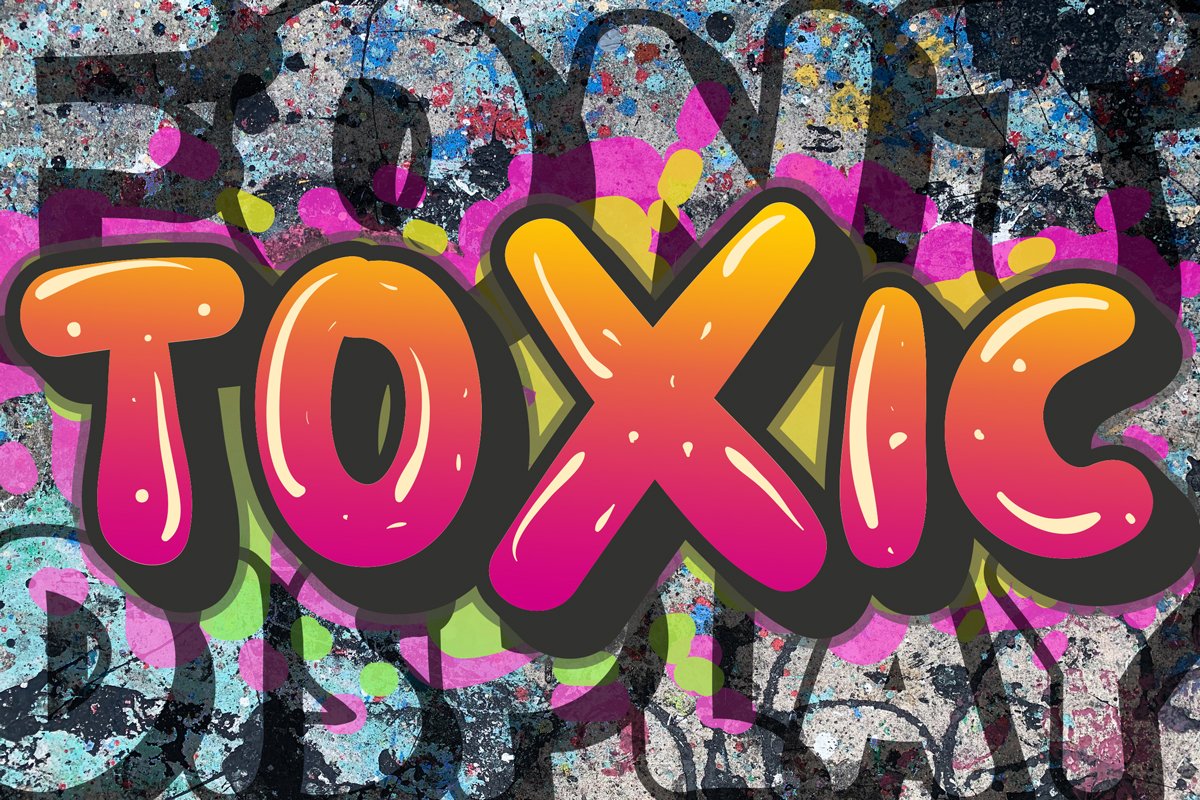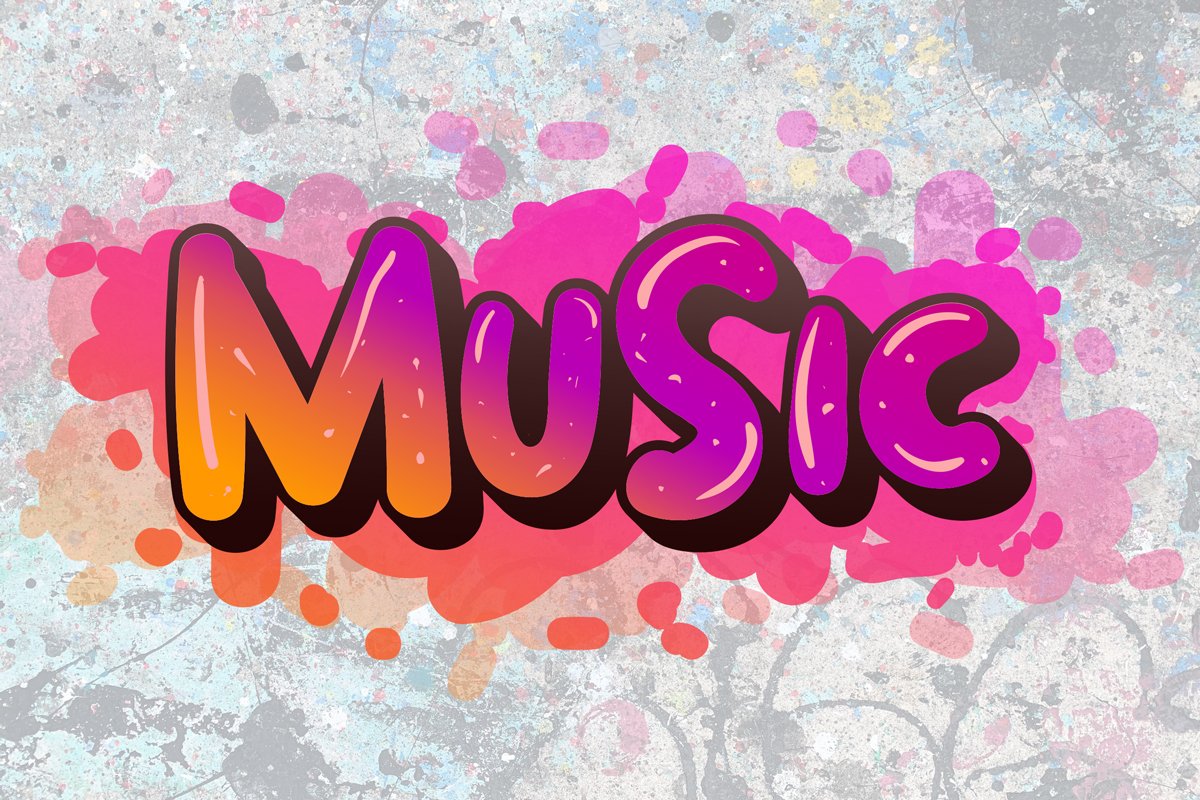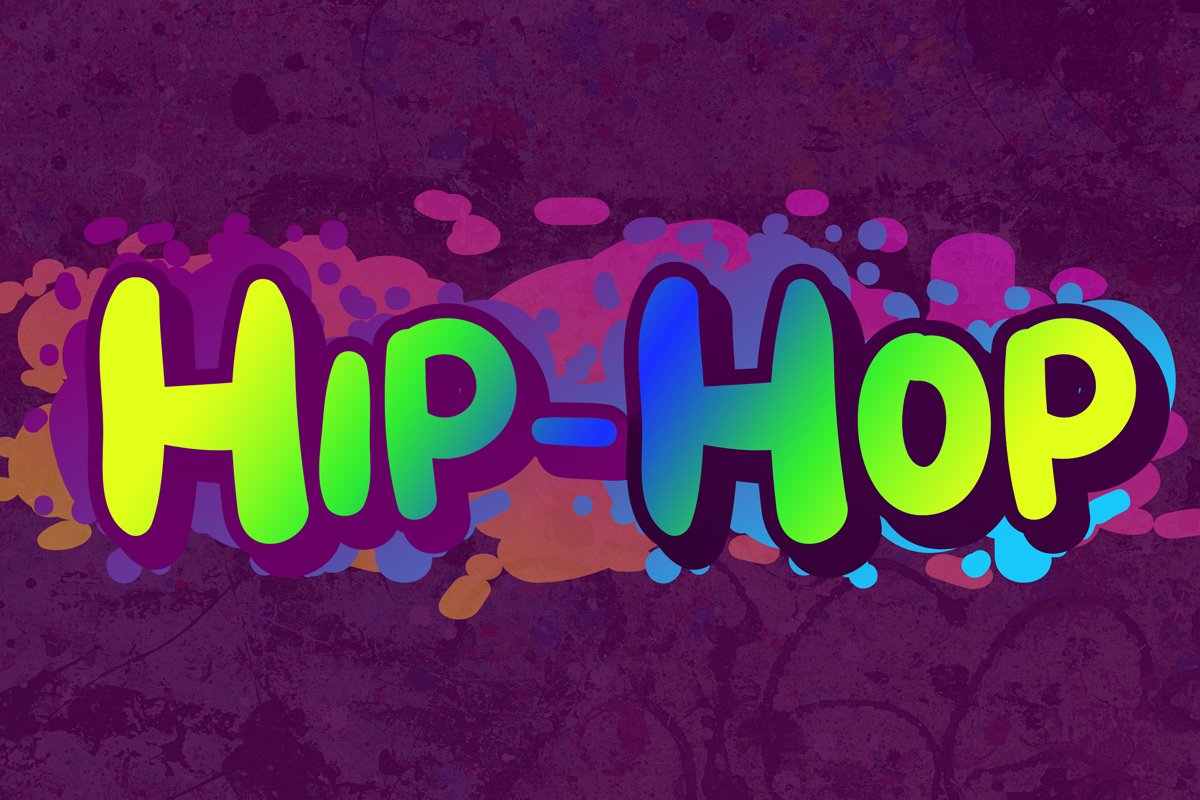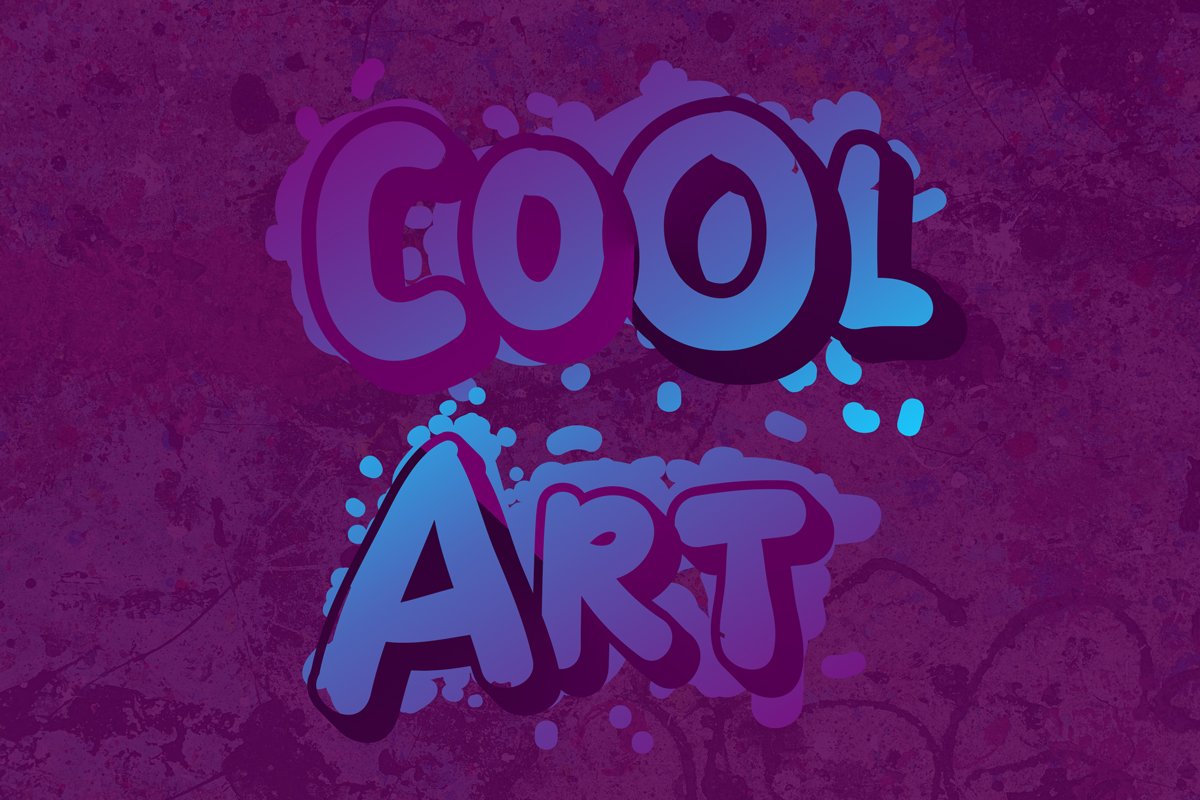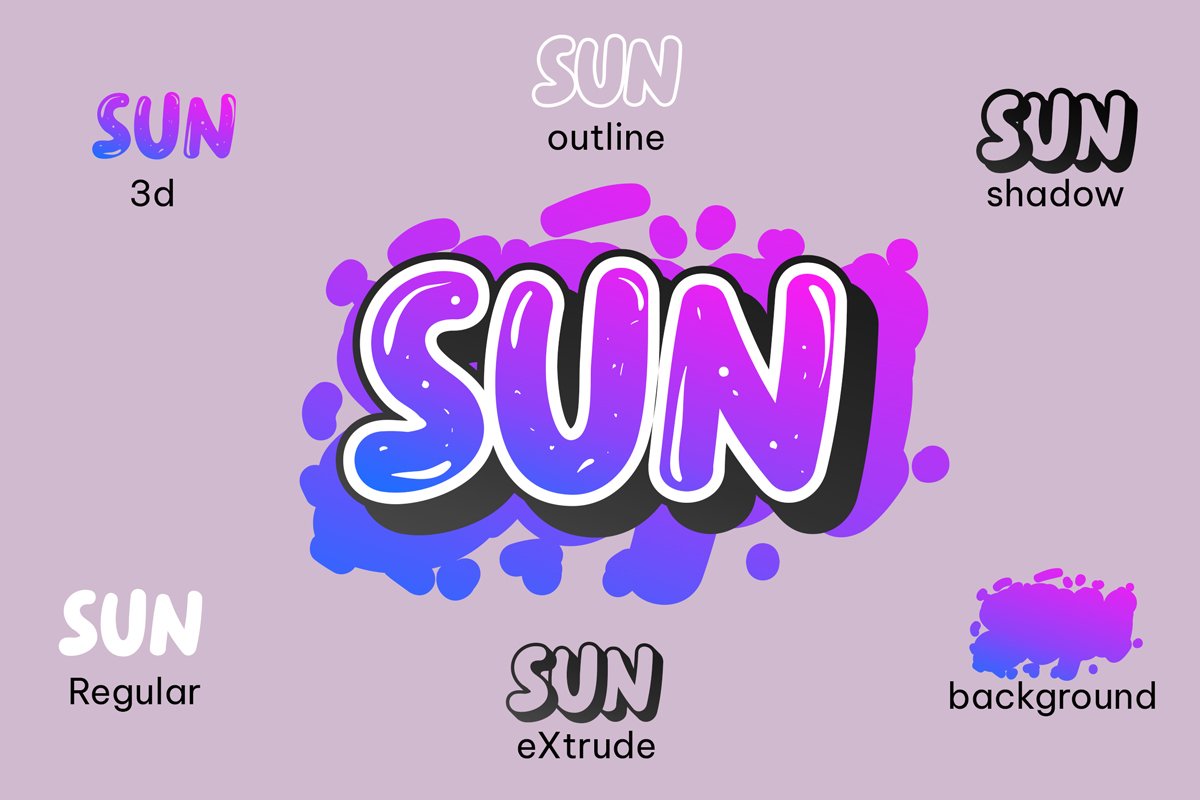
About the toXic styled display Font
Toxic is a bold, urban styled display font. Add this assertive font to your designs and make them stand out! This font is PUA encoded which means you can access all of the glyphs and swashes with ease! (please type the preview to see if I have what you need!)